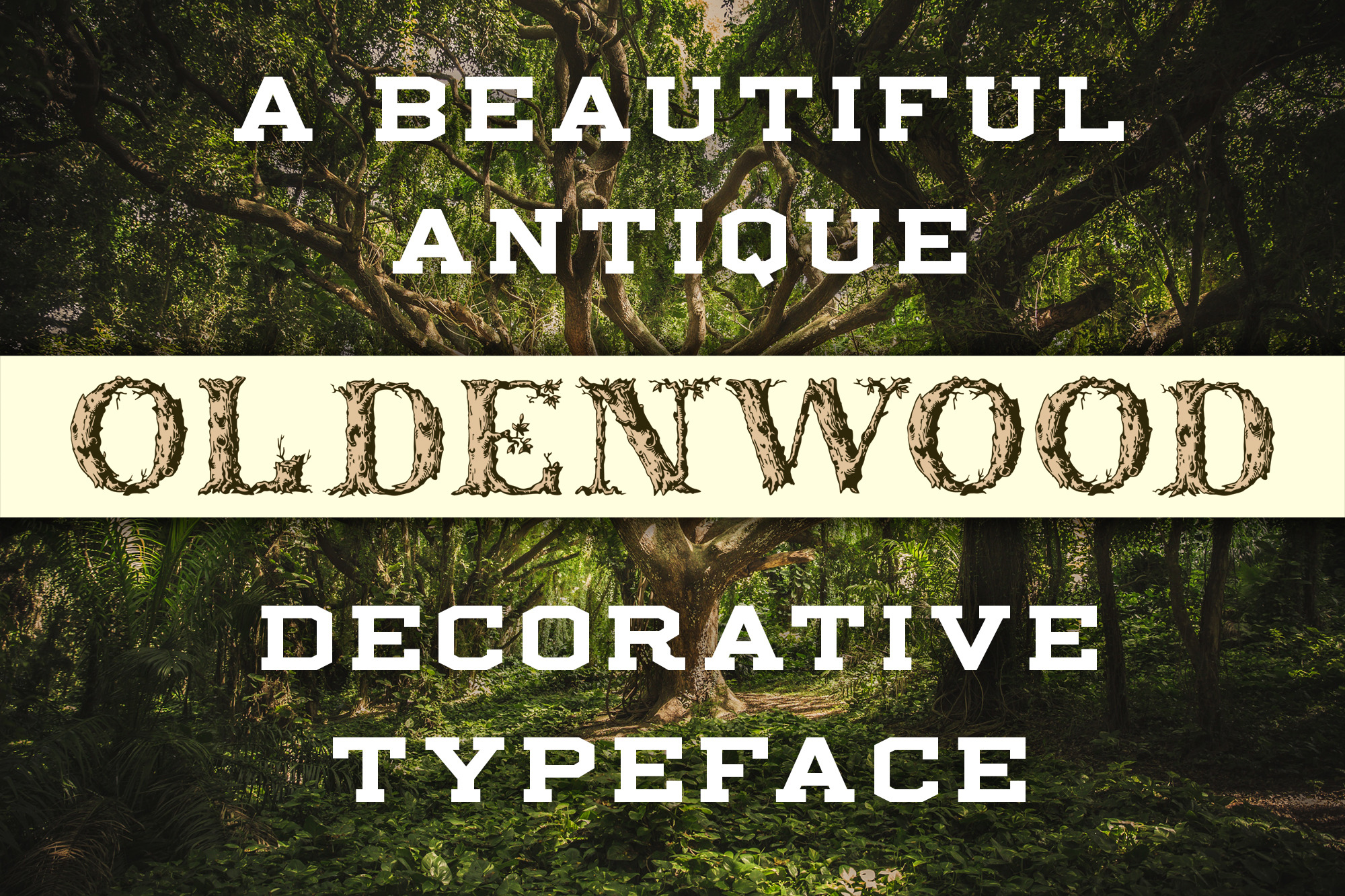
Font: Oldenwood - Caps Only
Add some old-world charm to your design with this vintage serifed typeface formed from tree logs, stumps, branches and leaves. Caps only for display. No lowercase characters, punctuation, symbols or color are included.